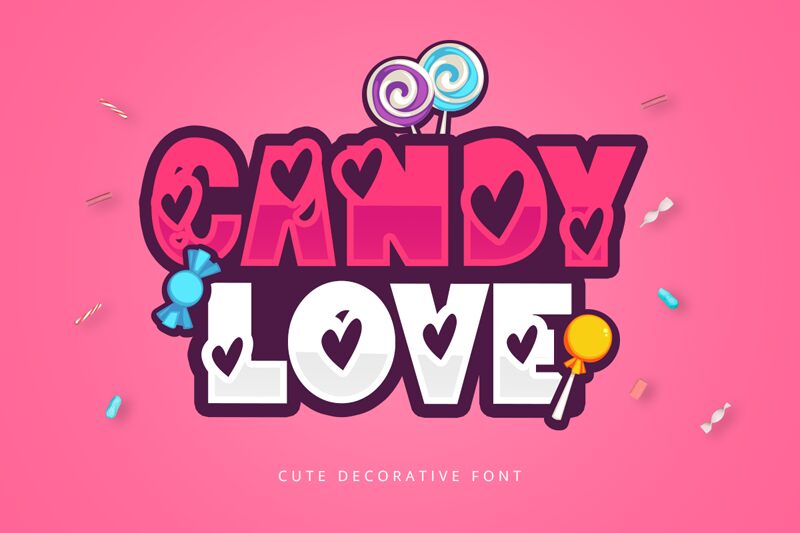
Candylove is a charming font creation by Kong Font, tailor-made to add a touch of sweetness to your holiday projects. With its extra-bold weight and valentine style, Candylove stands out with an aesthetic that's bold yet whimsical-perfect for conveying warmth and affection.
The font's playful curves and embellishments evoke the joy and romance of Valentine's Day, making it an ideal choice for greeting cards, wedding invitations, or any design project that calls for a burst of love-infused creativity. The robust weight ensures legibility even at larger sizes while maintaining the font’s delightful character.
Whether you're crafting special event signage or looking to sprinkle some romantic flair into your branding, Candylove offers versatility and visual appeal that can transform ordinary text into an enchanting message.